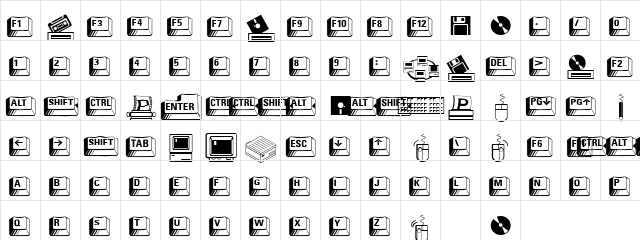
Keys Regular Font Preview
Keys Regular
Keys Regular Font Details
Design Context for Keys Typeface
Keys is a composed and adaptable typeface that performs quietly and consistently across a wide range of design contexts.